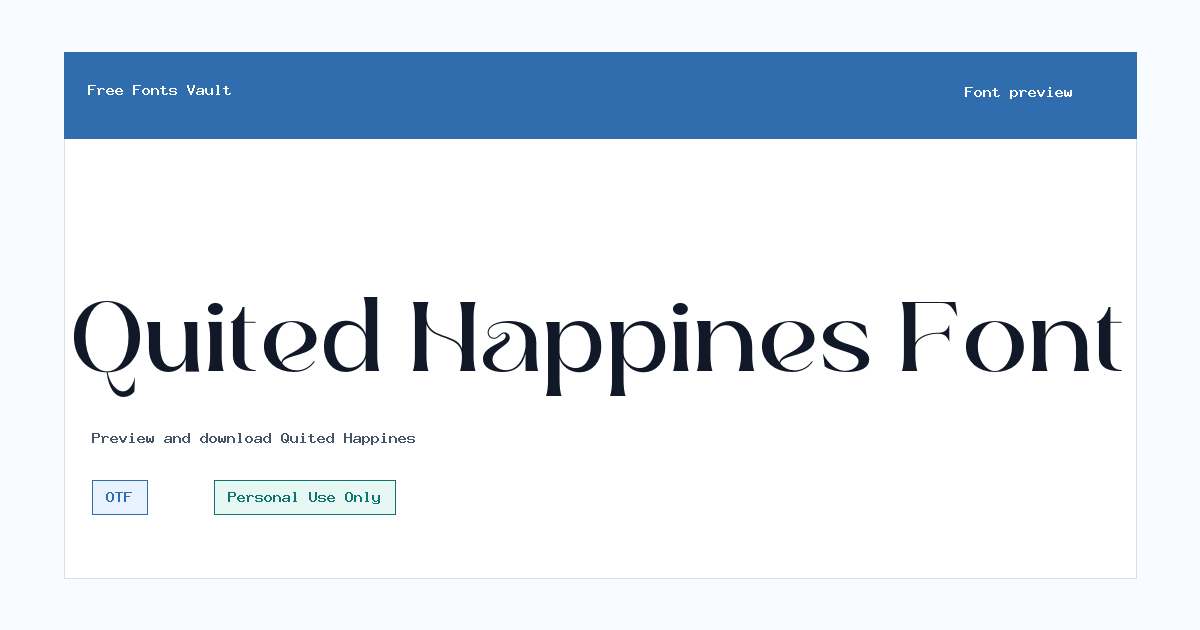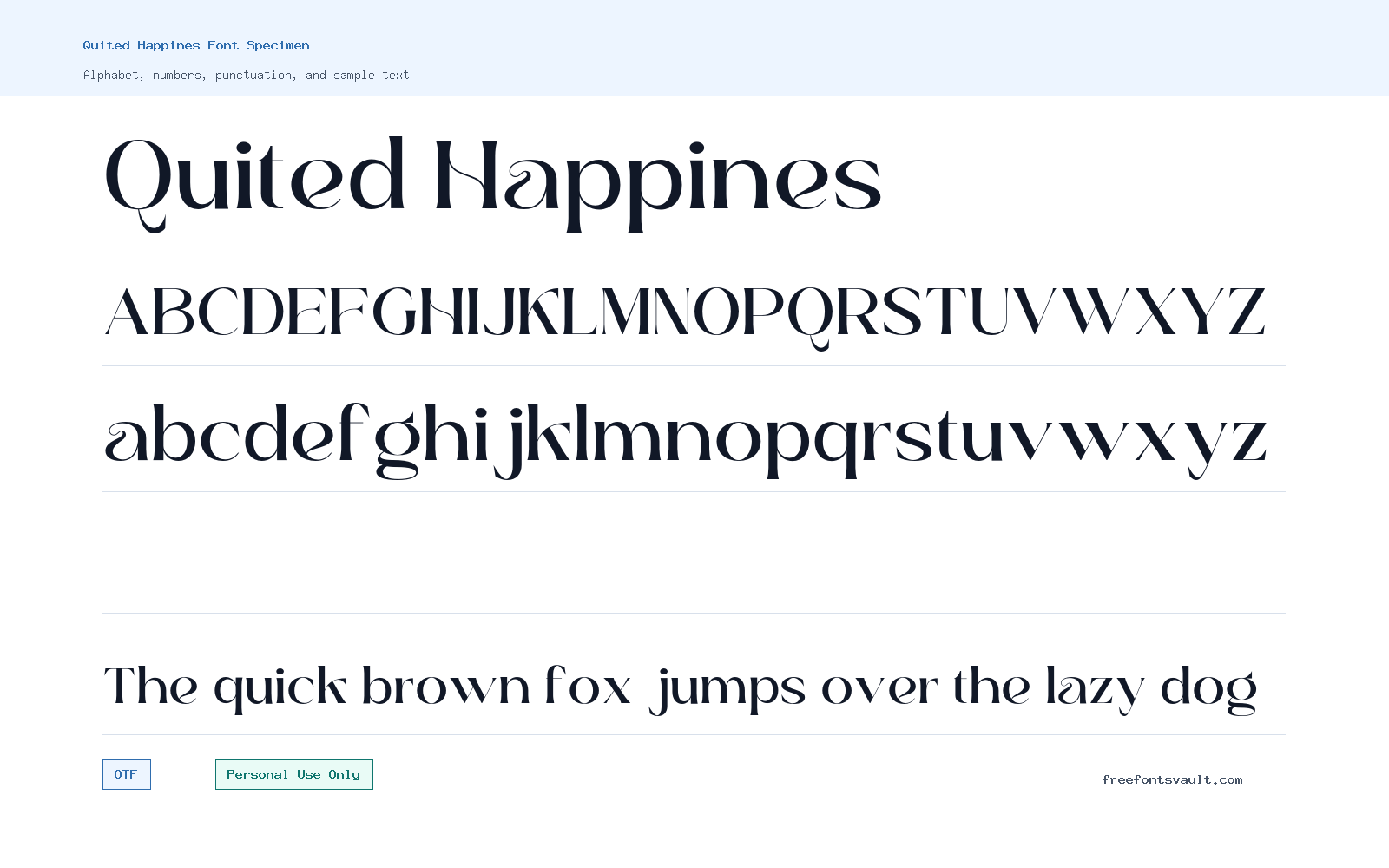
Quited Happines
Quited Happines Font
Quited Happines is a serif font from Say Studio with a demo OTF file for personal projects. It is best treated as a display choice: test it in the preview, check the letter spacing, and confirm the license before using it in any public or client work.
About Quited Happines Font
Quited Happines works well when you need a serif face for short, noticeable text rather than long reading blocks. The available file is a regular-weight OTF, so the main preview to check is how the standard style handles titles, names, invitations, quotes, and small branding drafts. Because only one regular variant is included, the font is easier to judge in simple layouts where the letter shapes can carry the design without needing bold, italic, or multiple weights.
Use the preview tool with the exact words you plan to design around. Try uppercase and lowercase text, a few punctuation marks, and numbers if your project needs them. For best results, keep the first test short: a logo mockup, a poster heading, a social graphic title, or a decorative quote. If the font feels too detailed or too distinctive at small sizes, pair it with a clean sans serif for body copy and use Quited Happines only for the main line. Also check spacing before export, since display serifs often need small tracking or kerning adjustments depending on the word.
• Serif style suited to headings, short phrases, invitations, quotes, and decorative text
• Personal design drafts, mood boards, invitations, and social media graphics
• Short display text such as names, titles, quote lines, and logo concept previews
What is Quited Happines best used for?
It is best for short display text such as titles, invitations, quote graphics, name treatments, and personal design mockups.
Can I use Quited Happines for body text?
Test it carefully first. With only a regular display-style serif file listed, it is safer for headings and short phrases than long paragraphs.